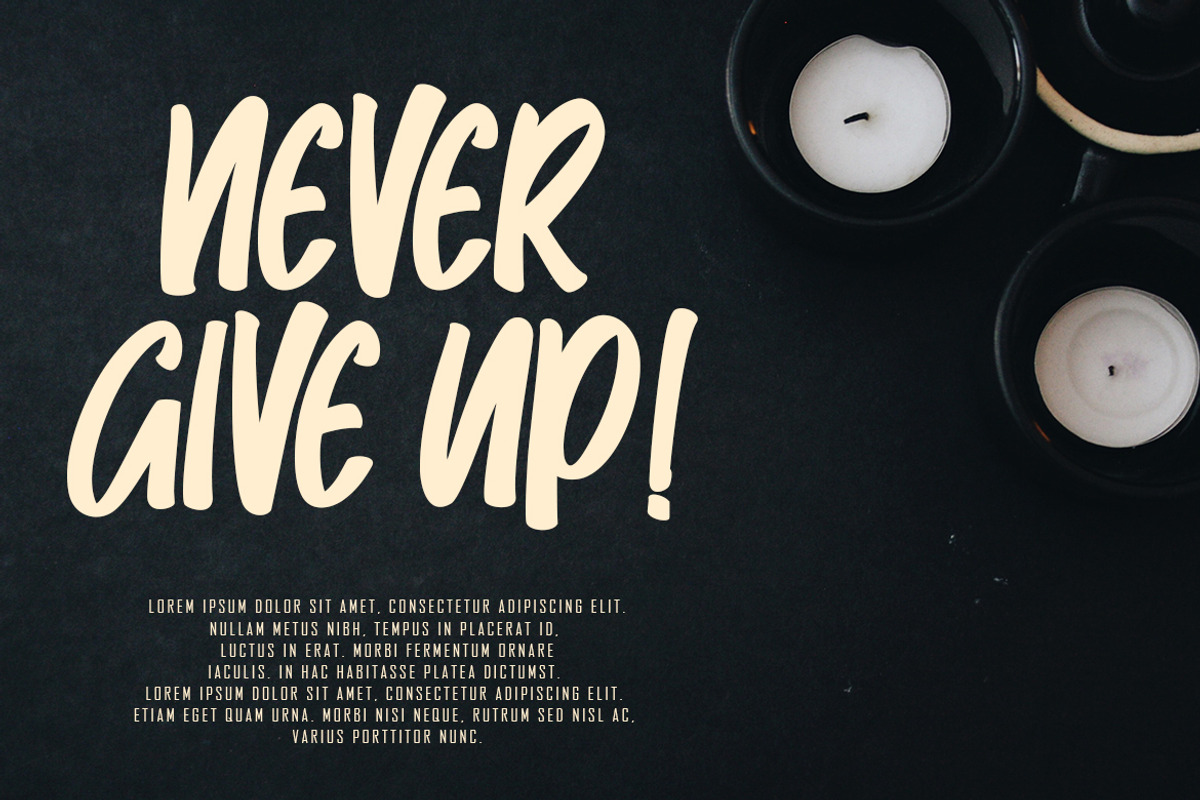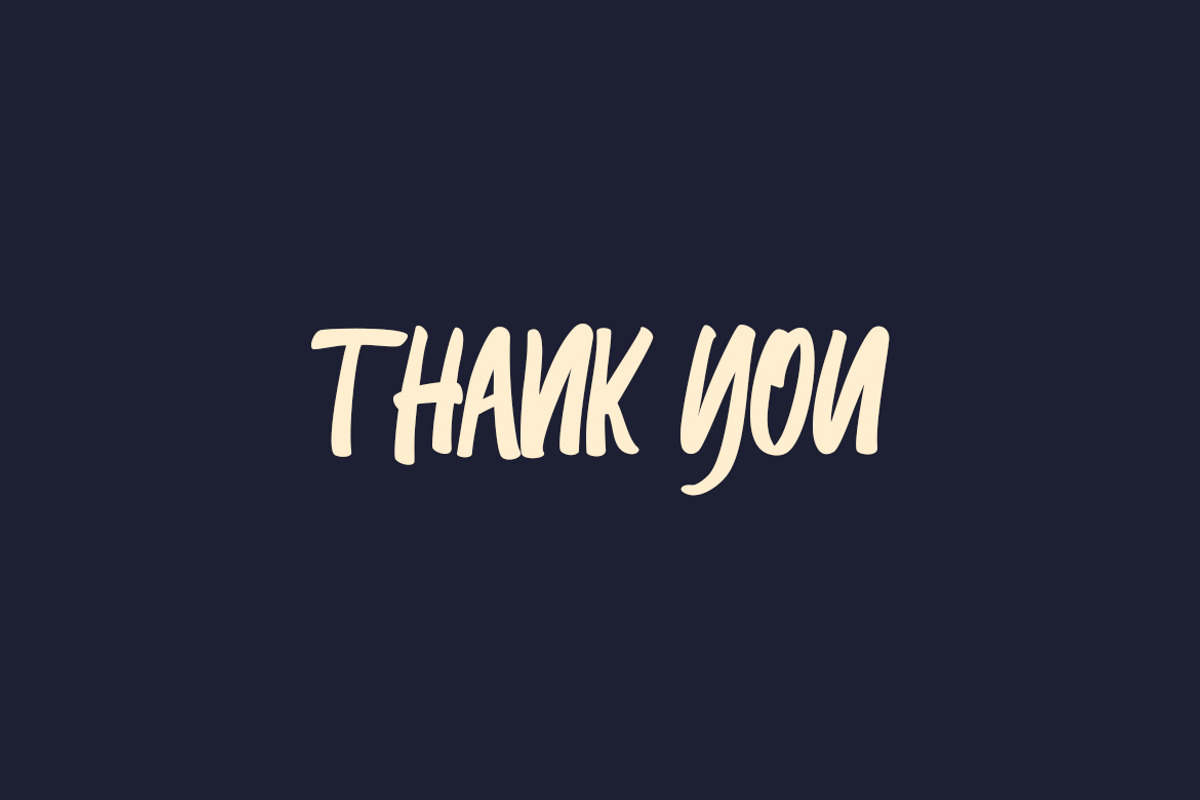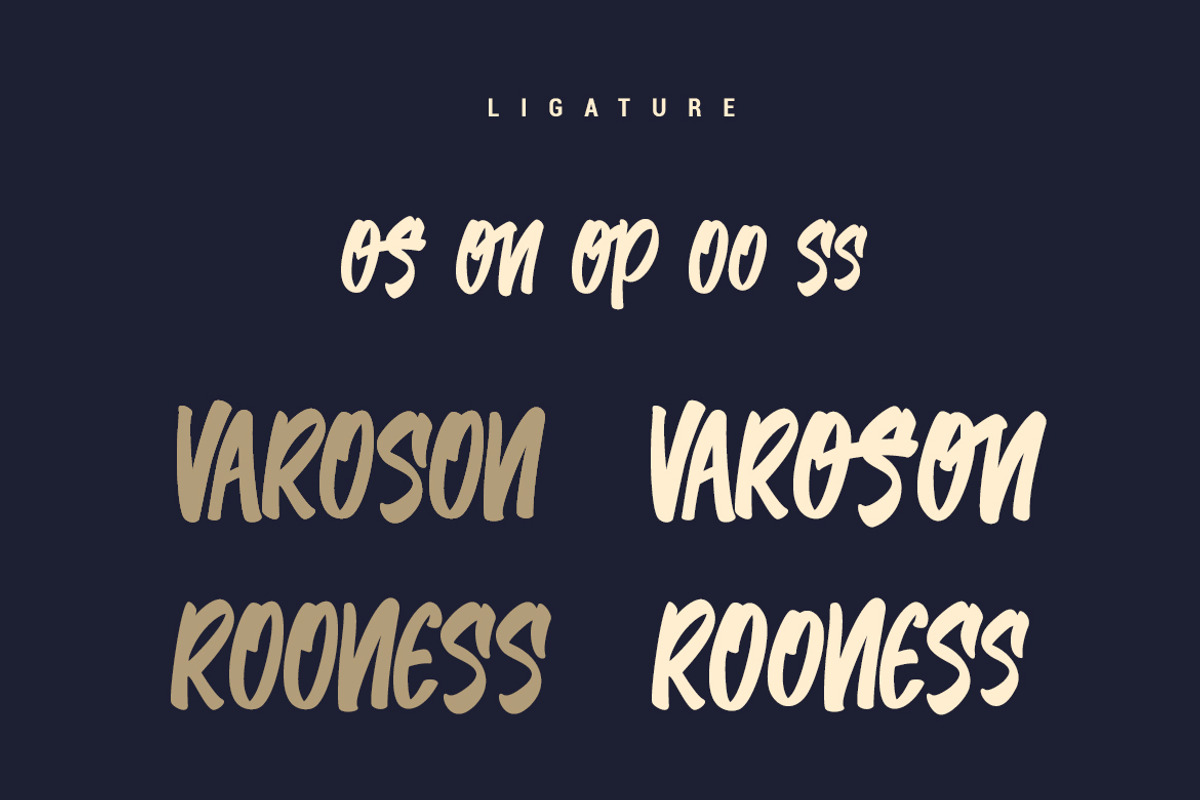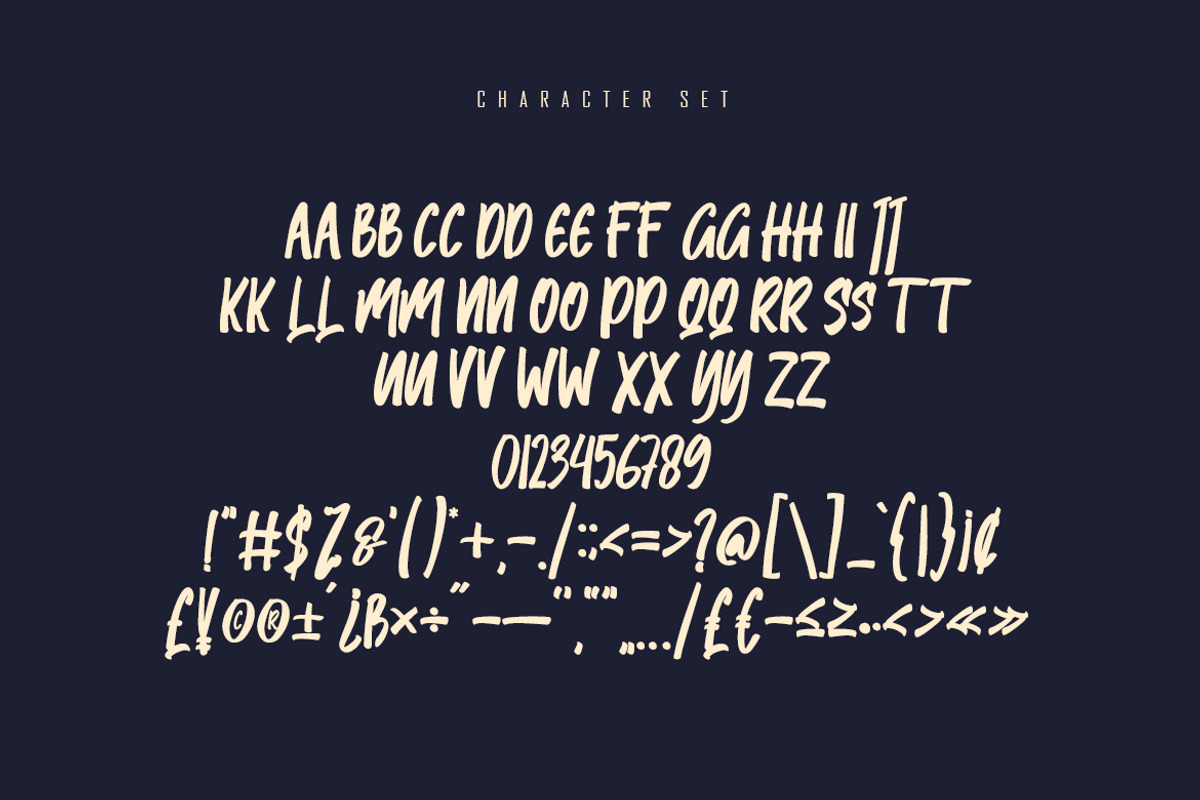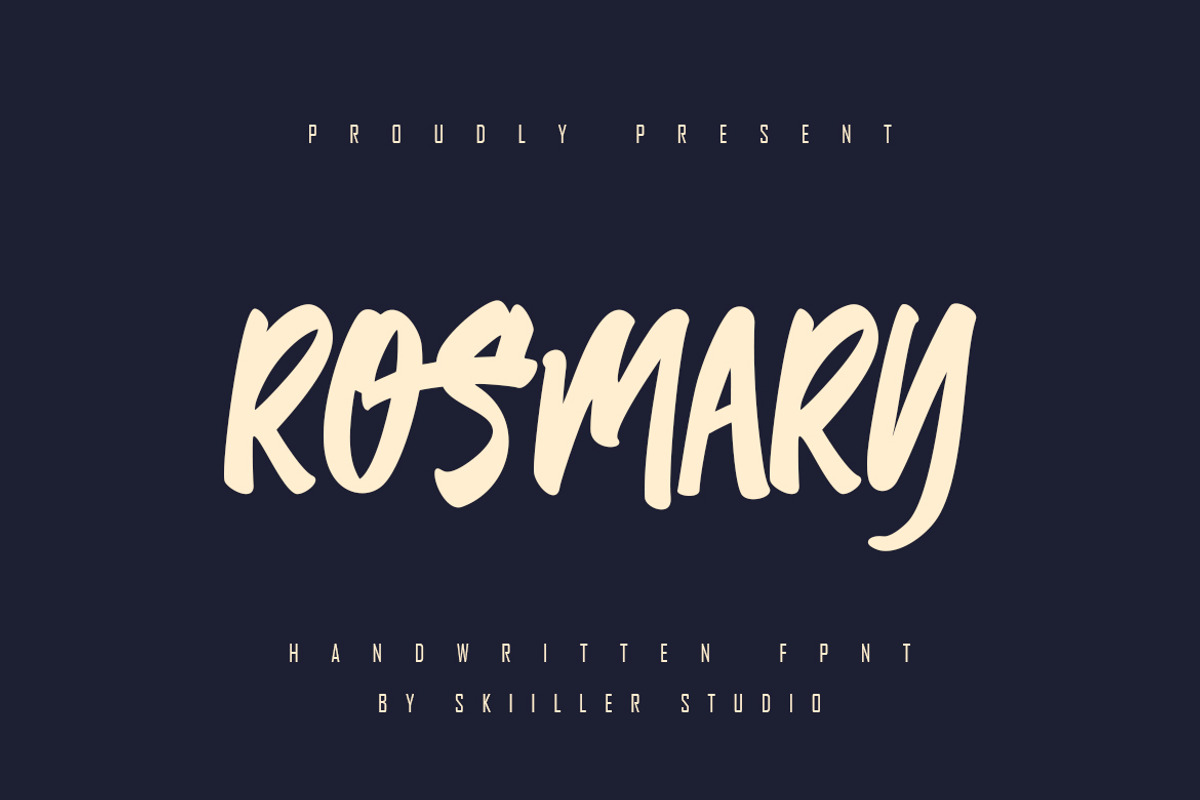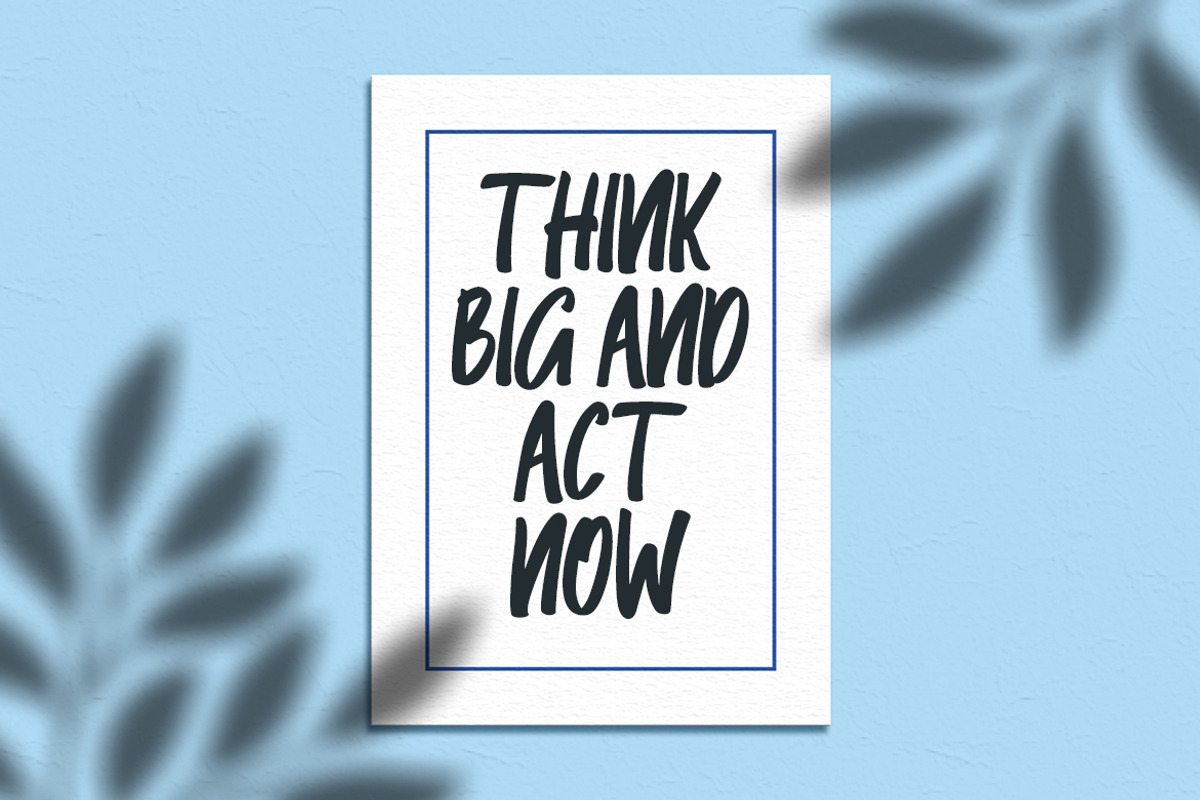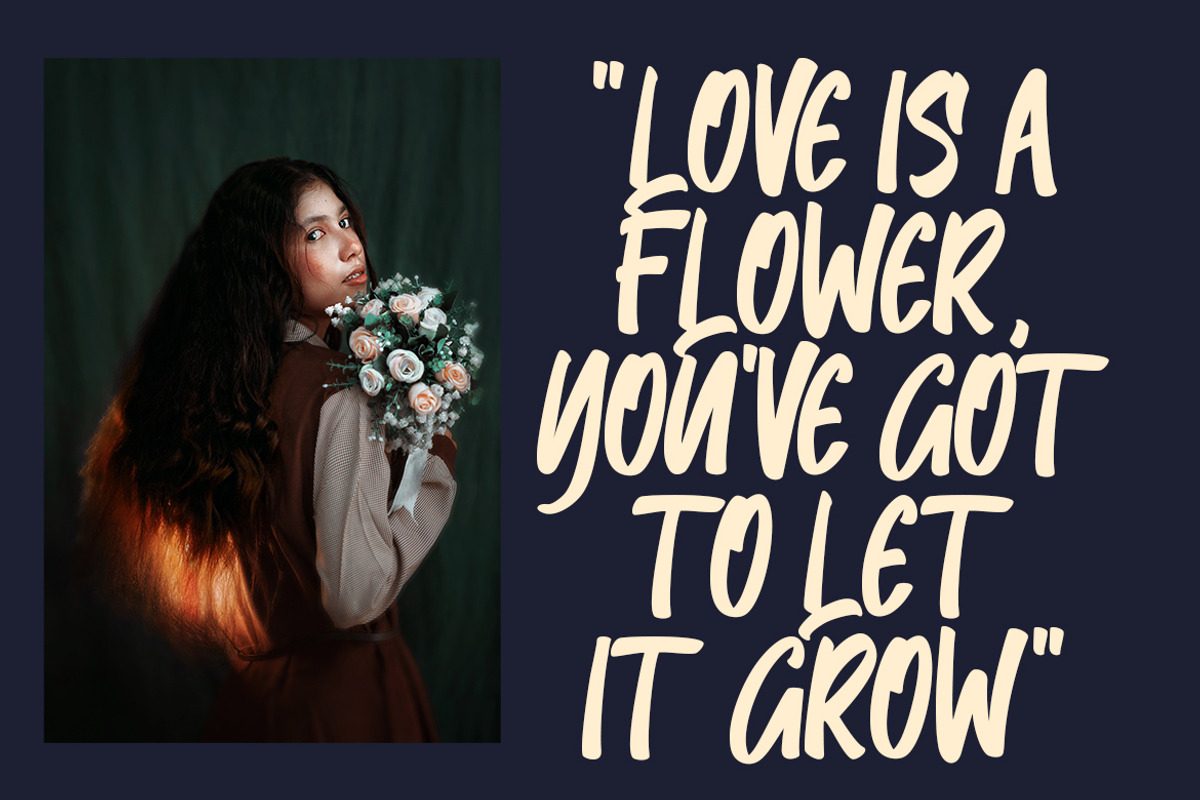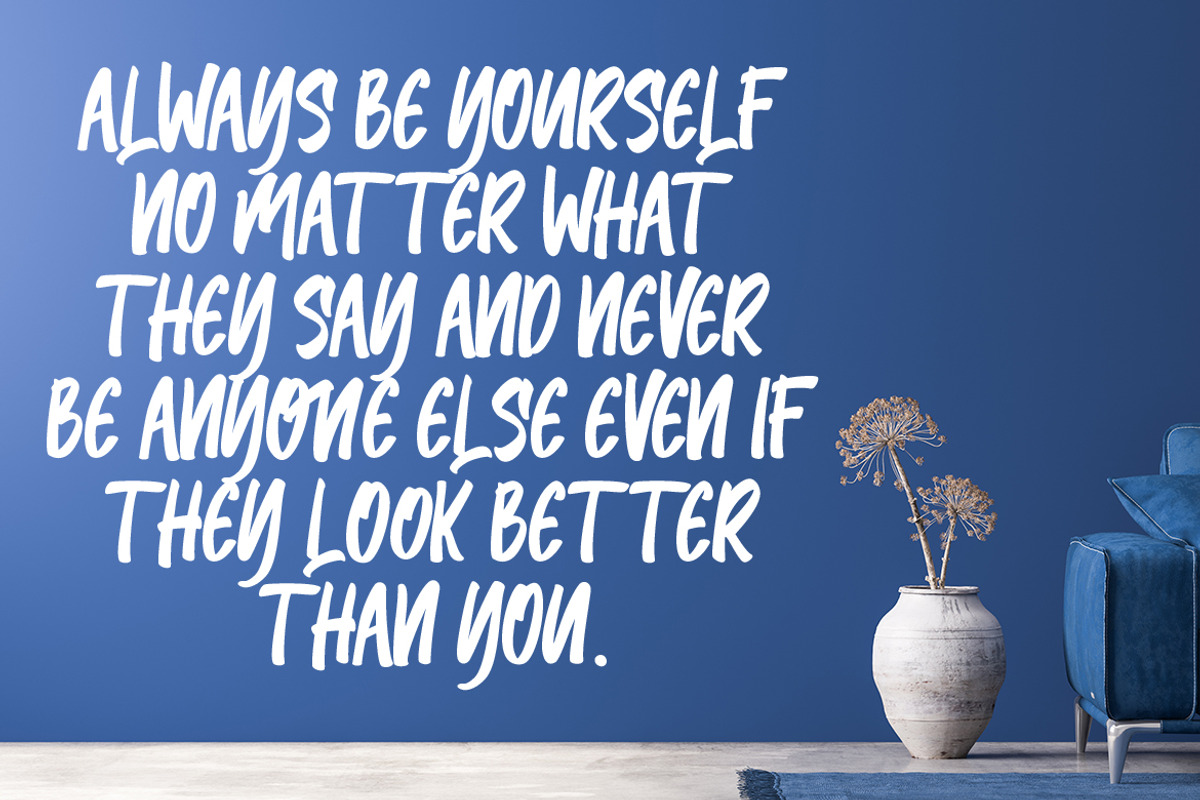
Rosmary - Handwritten Font
Rosmary is a unique and elegant handwritten font. It looks beautiful on a variety of designs requiring a personalized style, This font is PUA encoded which means you can access all of the glyphs and swashes with ease!